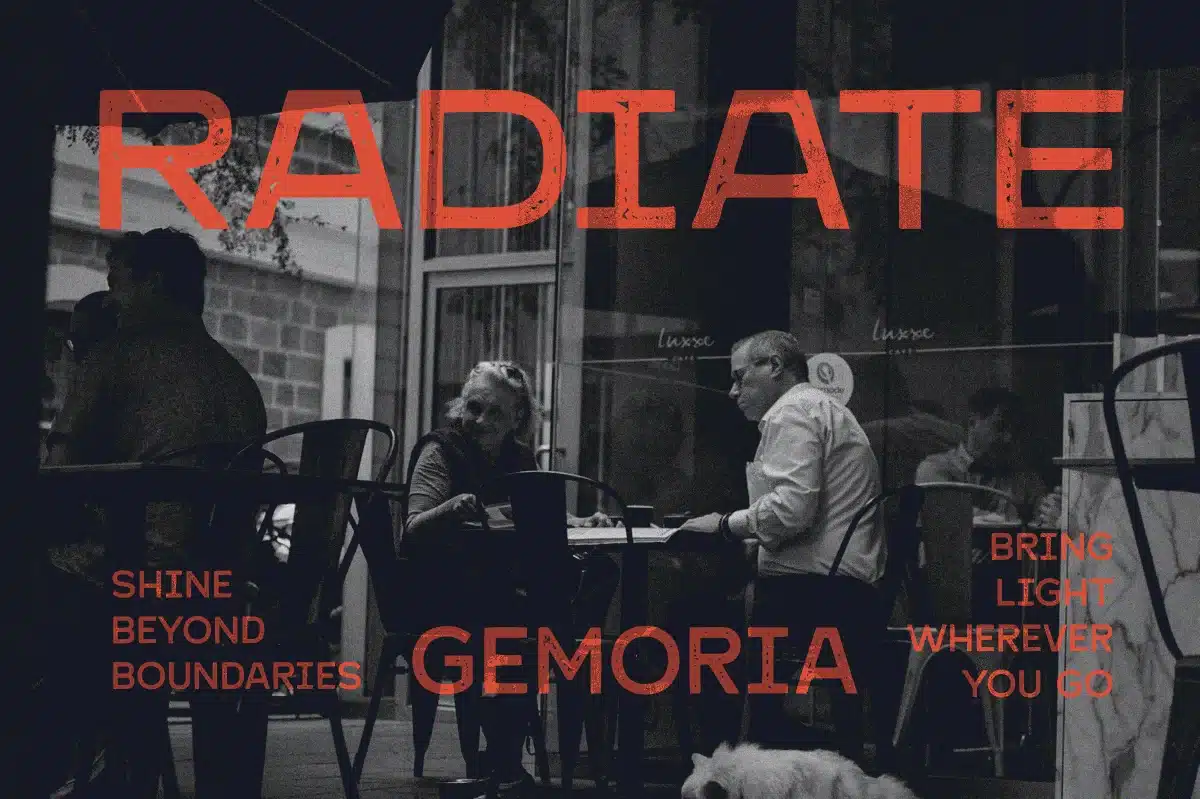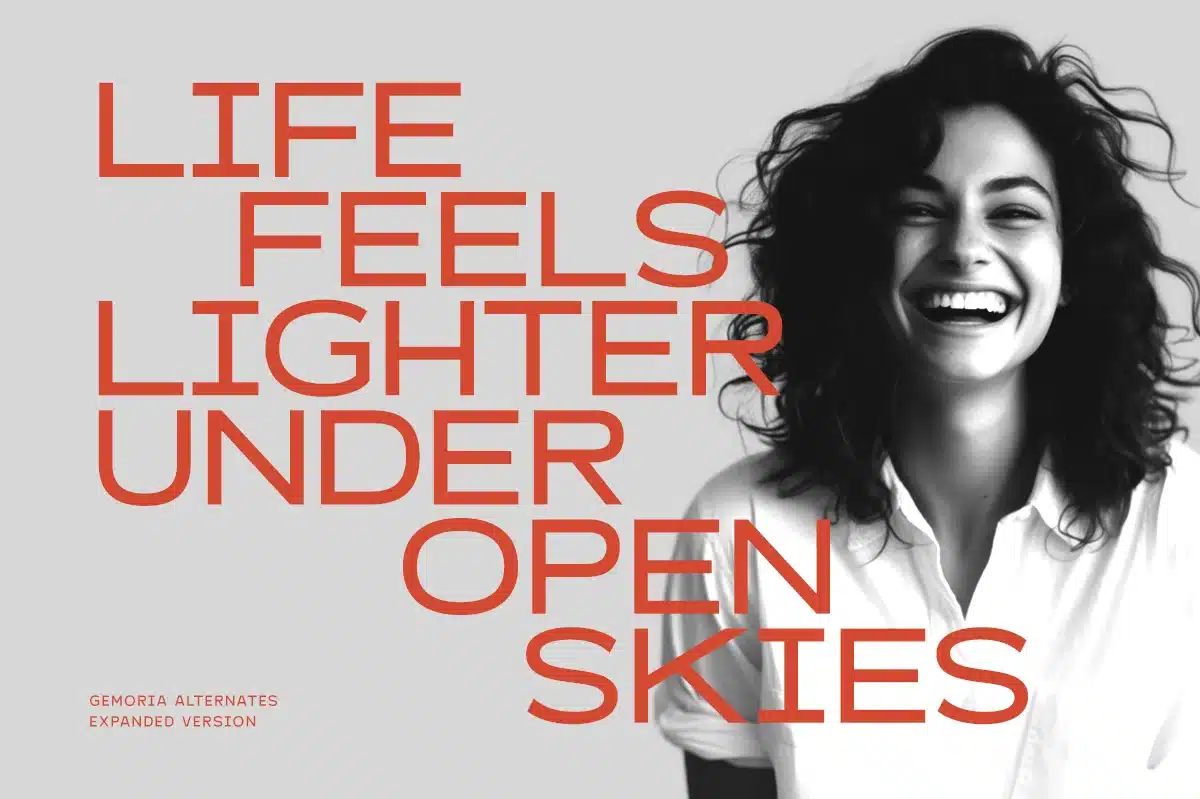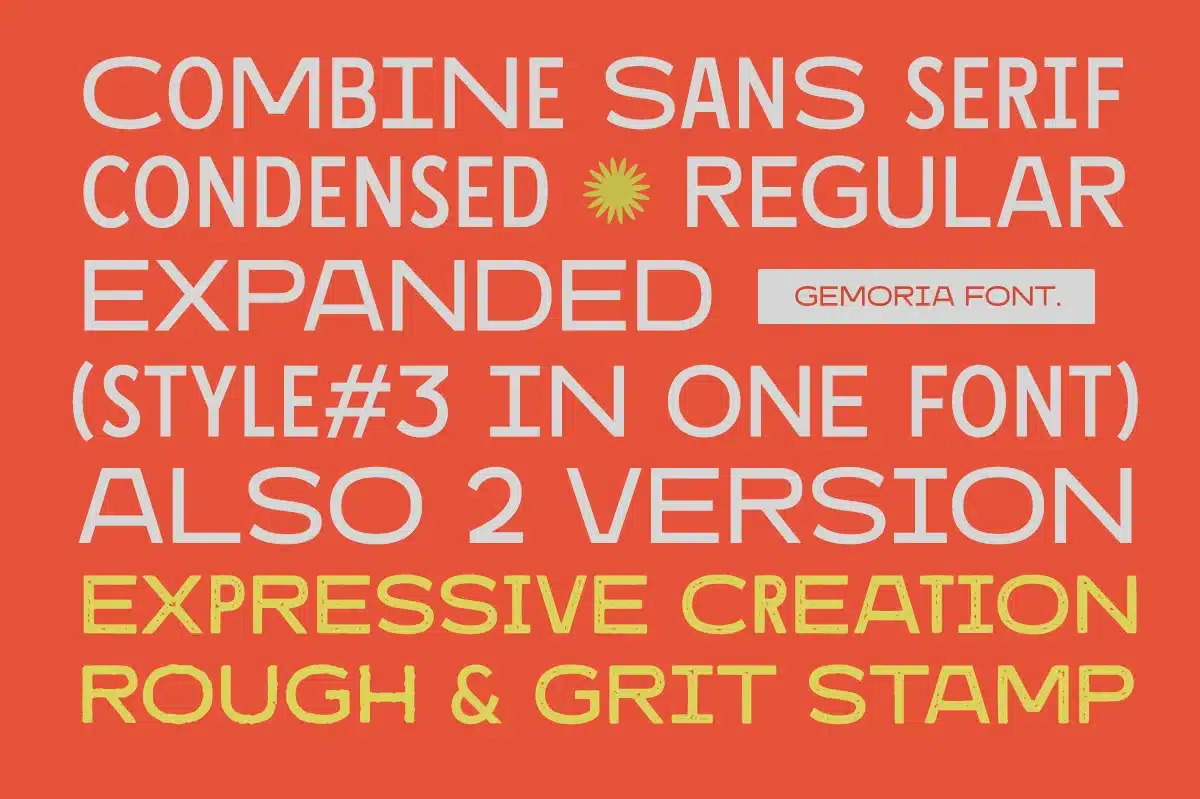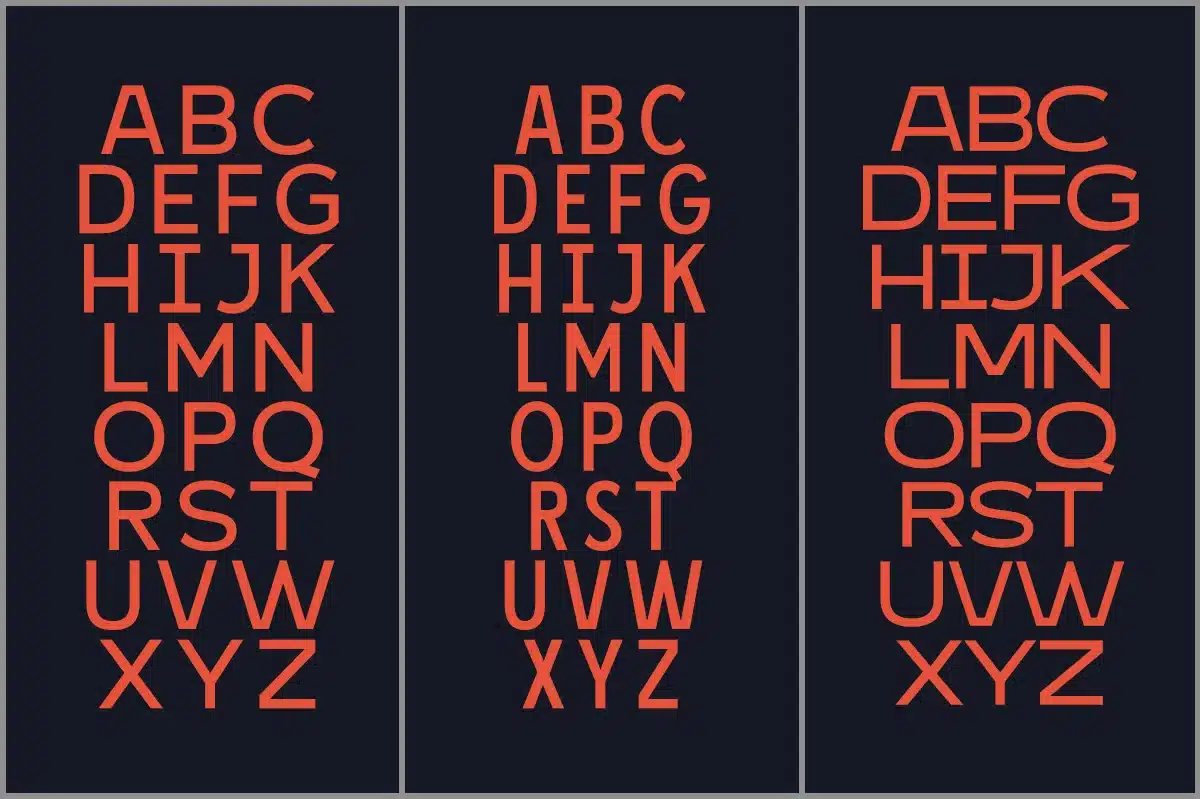
Gemoria Font
Gemoria is a modern sans serif font family that gives you serious flexibility. With three styles—Regular, Condensed, and Expanded—plus clean and gritty stamp versions, Gemoria lets you mix and match widths and textures for powerful, punchy designs. It’s built for branding, posters, headlines, packaging, and anything that needs a strong visual presence.
*Regular, Rough & Stamp
*Uppercase/lowercase
*Numbers and punctuation
*Multilingual Support